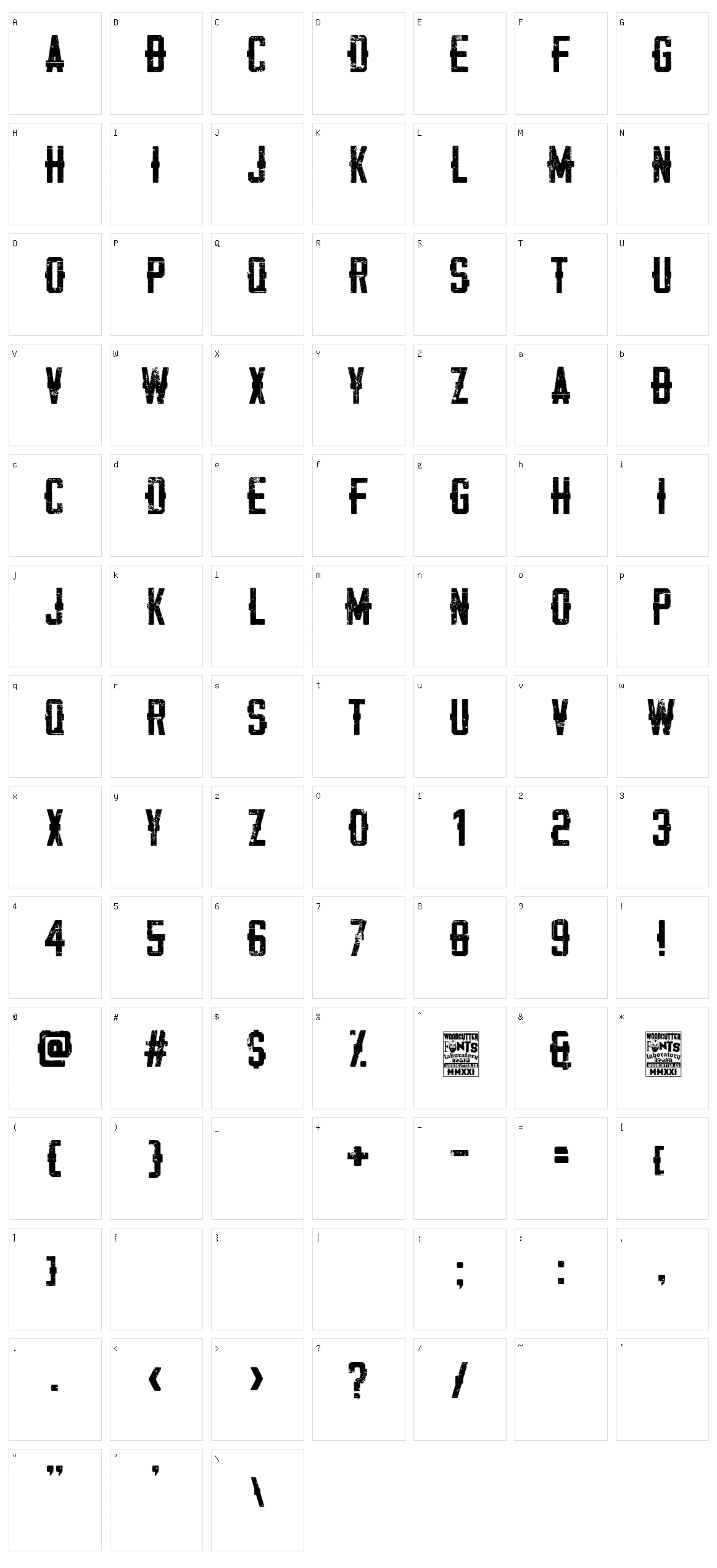
The free font Death College is carefully designed by Woodcutter, showcasing a thoughtful balance of creativity and usability and falls under the Eroded font style. When you download the ZIP file, it contains only 184.74 KB of font files, making it lightweight and quick to download. Please review the license details below to understand permitted usage and distribution rights. If license information is not available, we recommend using this font for personal projects only or contacting the author directly for commercial usage permissions.